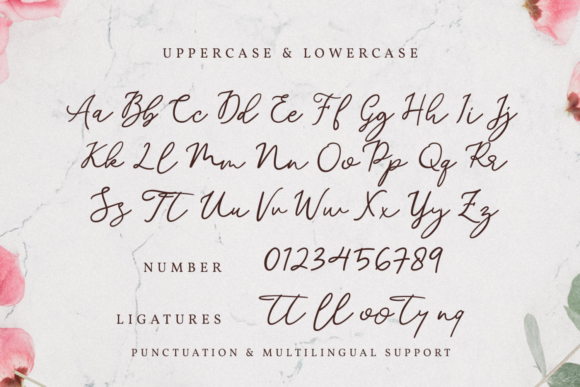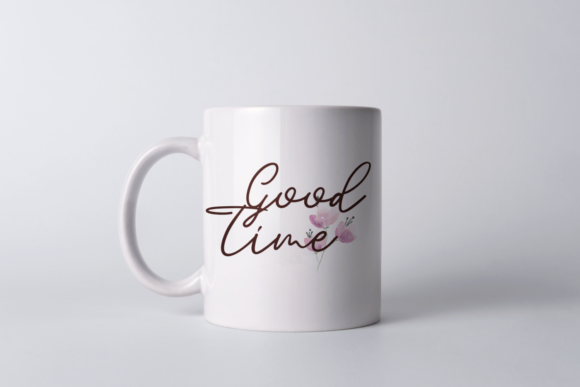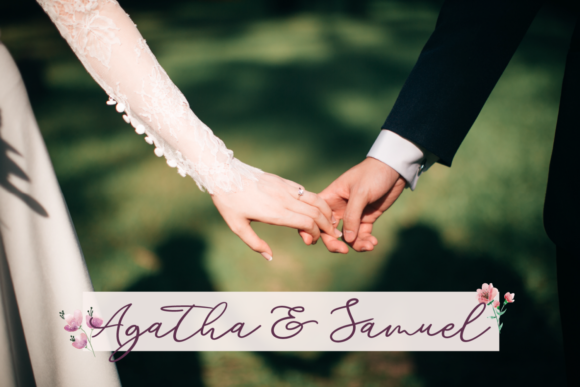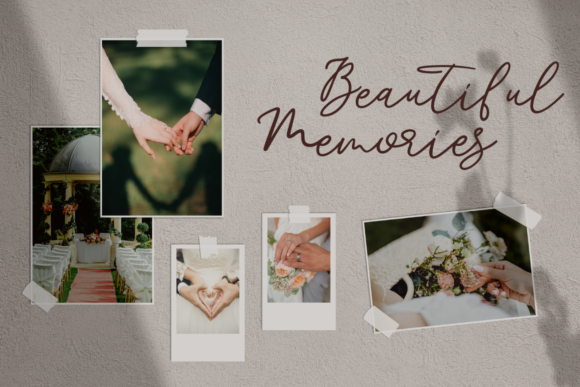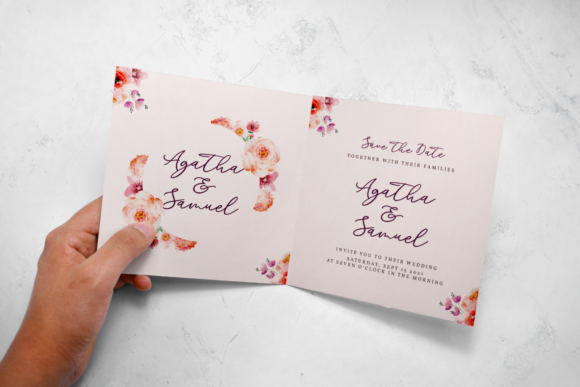
About Welly & Moody Font
Welly & Moody is a lovely script font carefully created with a touch of elegance. Whether you’re looking for fonts for Instagram or calligraphy scripts for DIY projects, this font will turn any creative idea into a true piece of art!